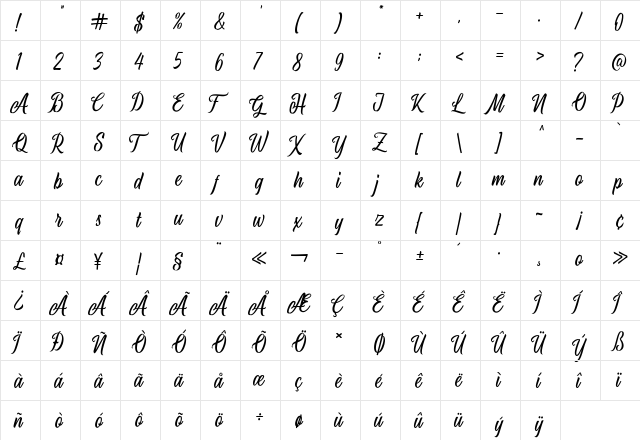
Airplane Script Regular
Design Context for Airplane Script Typeface
Airplane Script brings a calligraphic fluidity to the page — its connecting strokes and expressive curves give it an unmistakably human quality.
Font Pairing: Combine Airplane Script with a simple geometric sans for maximum contrast — the tension between flowing curves and clean structure is a classic typographic pairing.
Pro Tip: Pair Airplane Script with a clean sans-serif for supporting text. The contrast between fluid script and geometric structure creates an elegant typographic hierarchy.